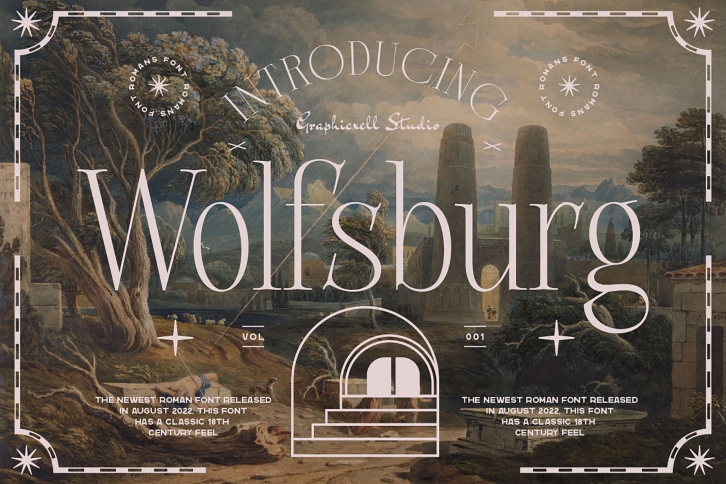
Wolfsburg Serif is a great font that was designed by Graphicxell. Imagine the amount of combinations you can create using this font! The archive is 11.2 MB and it was released on August 21, 2022. Wolfsburg Serif looks beautiful on wedding invitations, greeting cards, logos, posters, labels, t-shirt designs, logos, business cards and is perfect for use in ink or watercolor works, fashion, magazines, packaging and food menus, children's books and more!